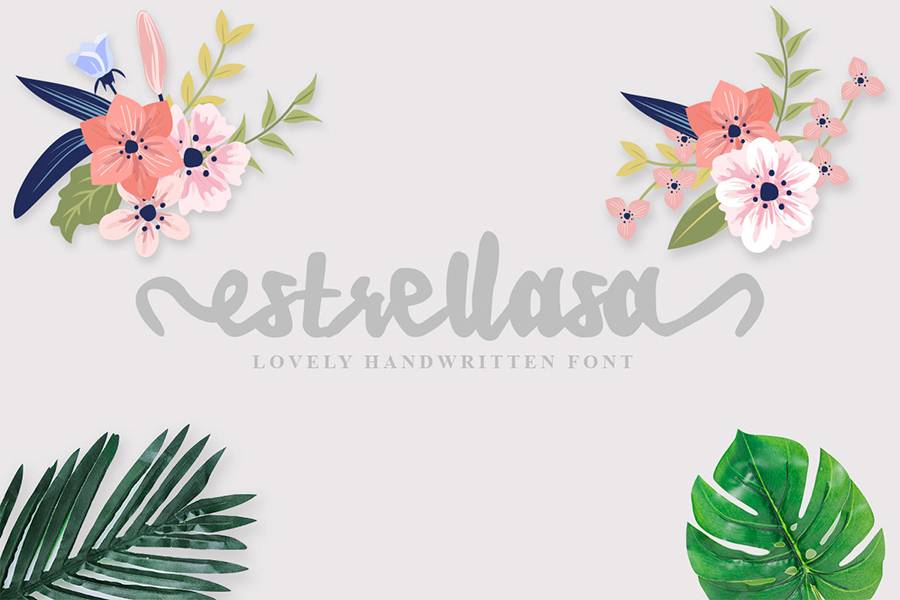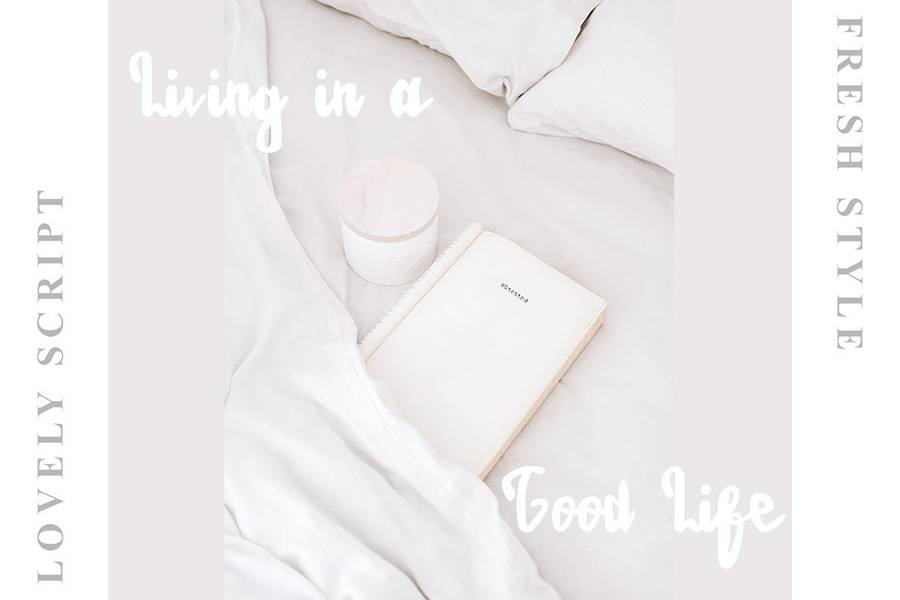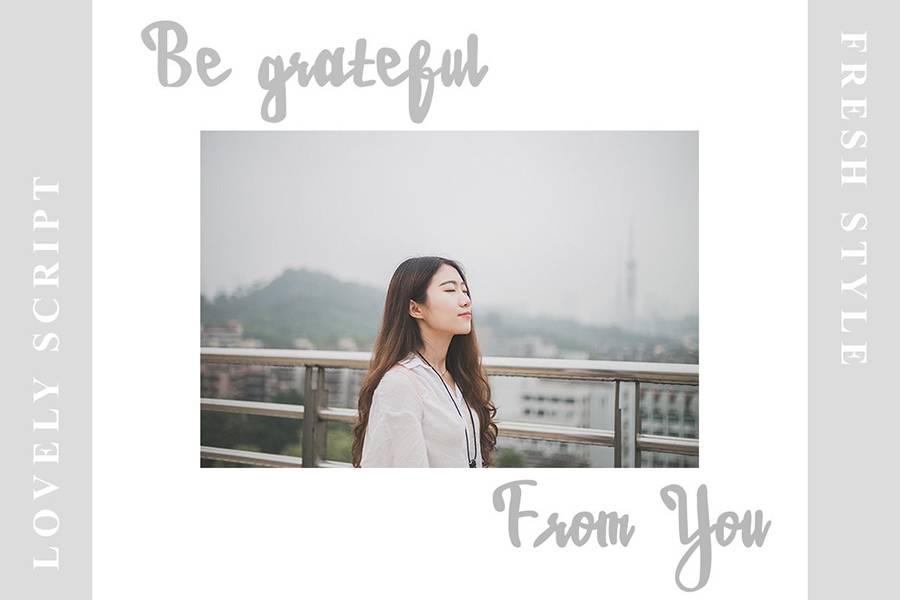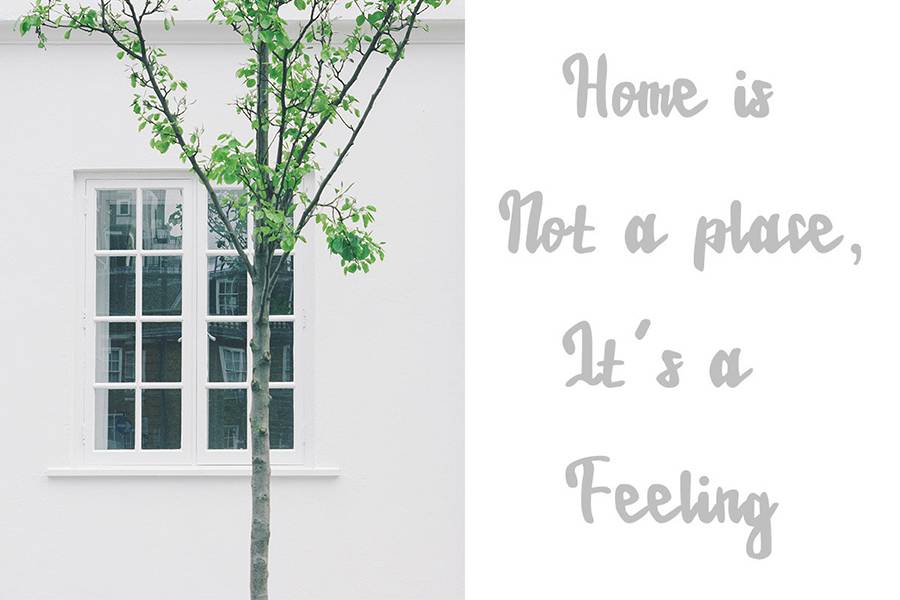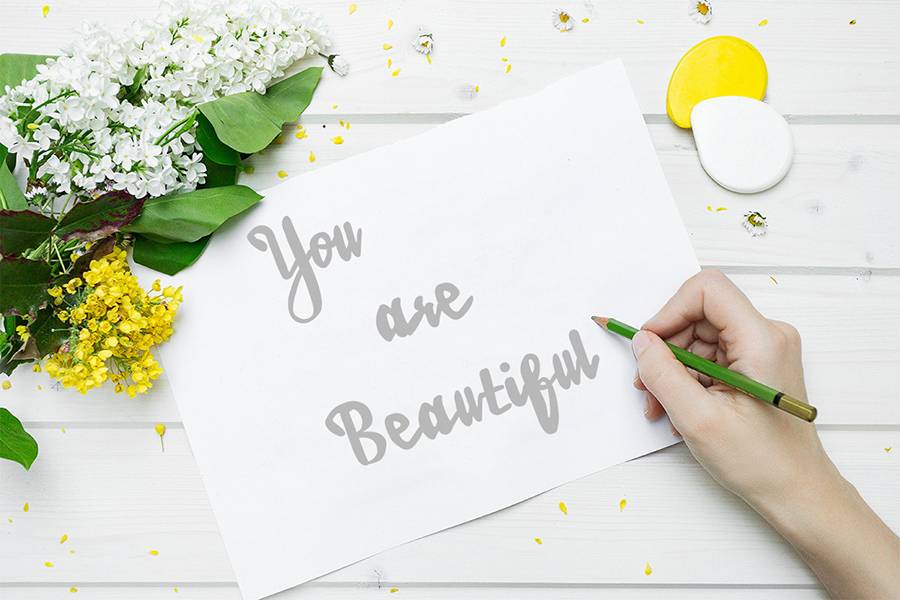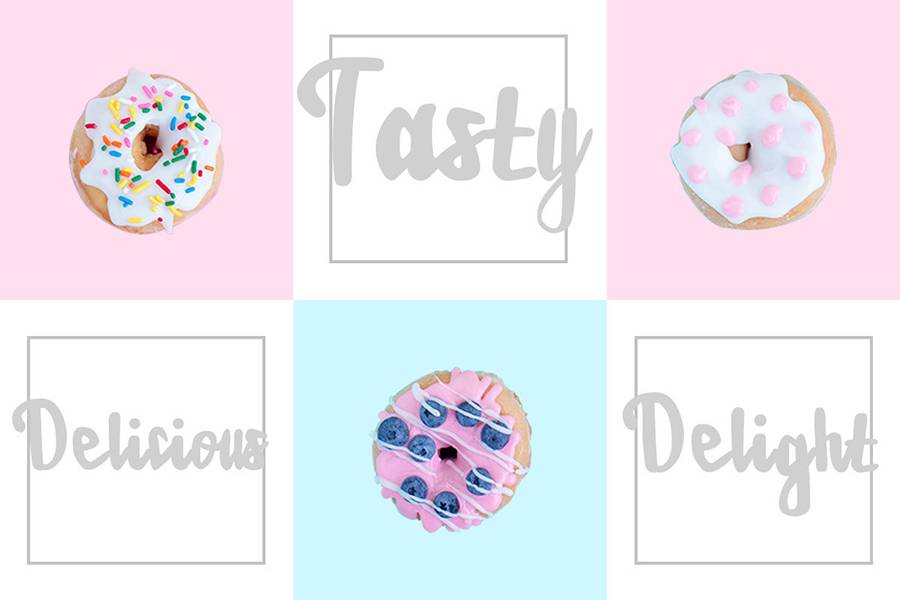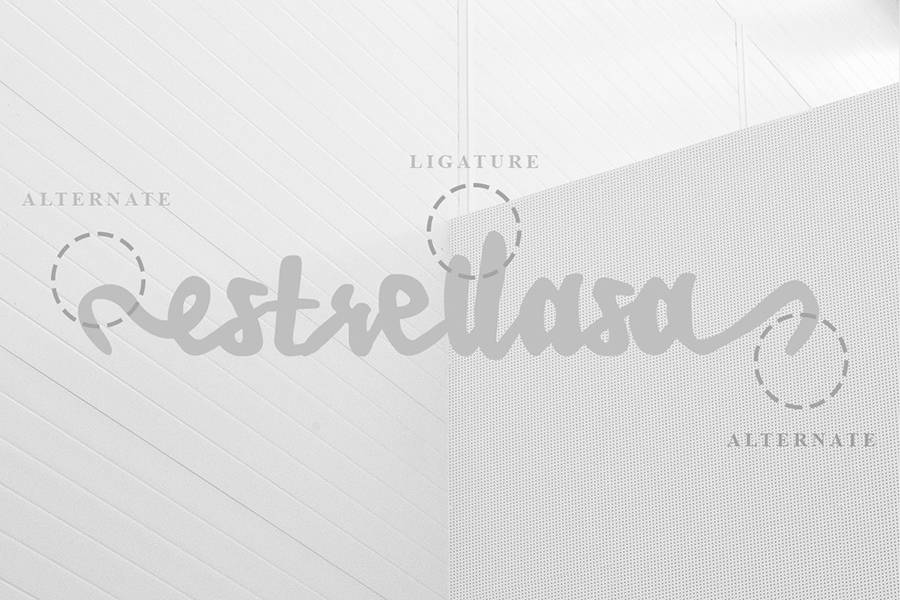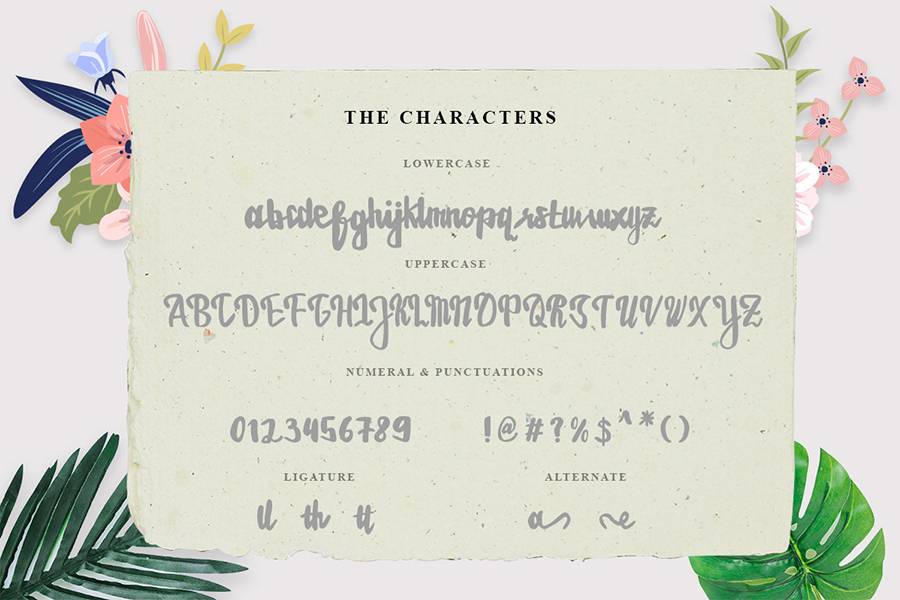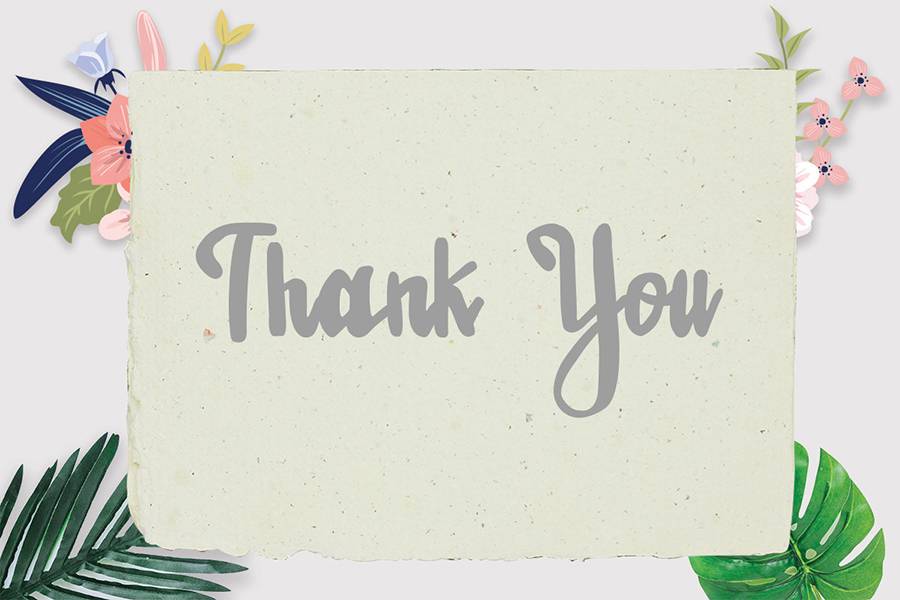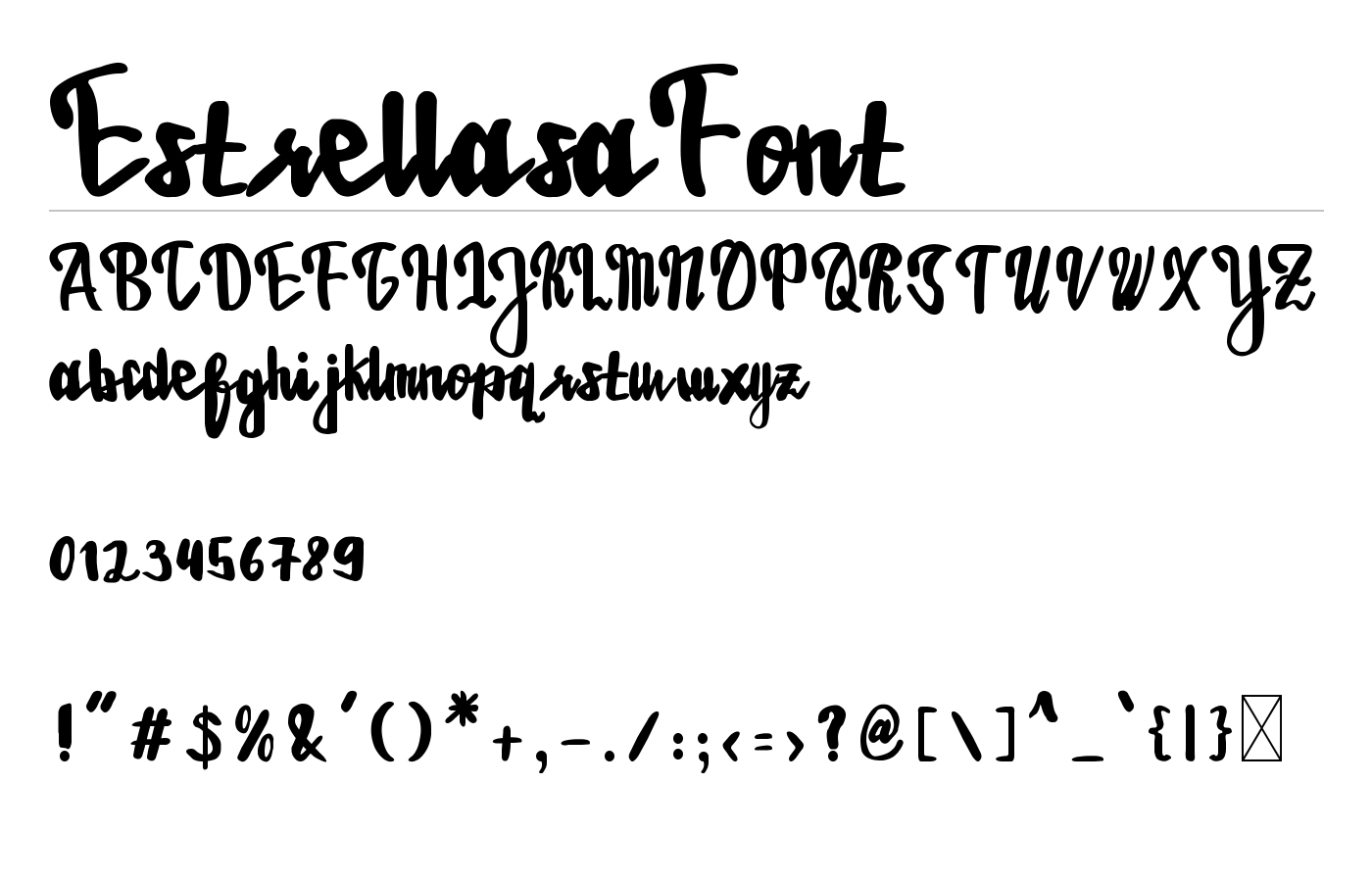
Estrellasa Modern Script is a lively and bold handwritten font with a playful, casual personality. Its thick, rounded strokes and fluid connections create a warm, inviting feel perfect for adding a personal touch to branding, invitations, or social media graphics. This font works best for headlines and logos where a friendly, modern script style is desired to capture attention and convey approachability.
Estrellasa Modern Script Font
About Estrellasa Modern Script Font